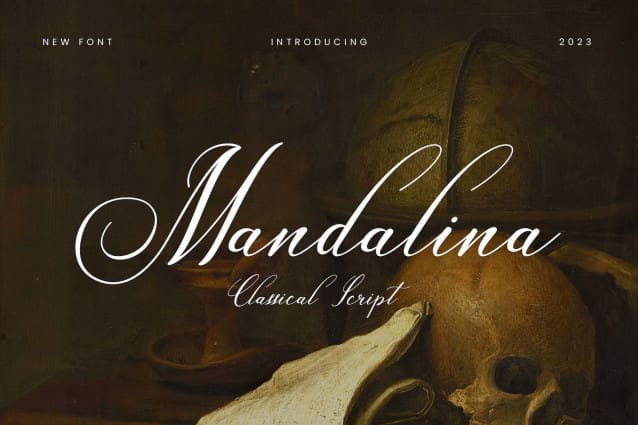
Mandalina Classical Script Font
Mandalina Classical Script Font, that feels beautiful classy, ​​elegant, and modern. This font is perfectly suited for a wide variety of projects, such as signature, stationery, logo, wedding, typography quotes, magazine or book covers, website headers, branding, packaging design, and more. Also, fashion-related branding or editorial design displays both masculine and feminine qualities.